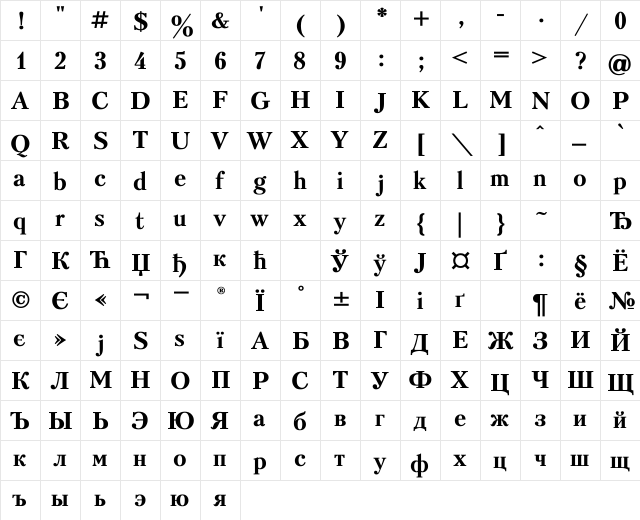
Kudriashov Bold Font Preview
Kudriashov Bold
Design Context for Kudriashov Typeface
Kudriashov takes a measured approach to typography — its balanced proportions and neutral character make it a reliable workhorse for both digital and print work. Its bold stroke weight gives it real presence on the page.